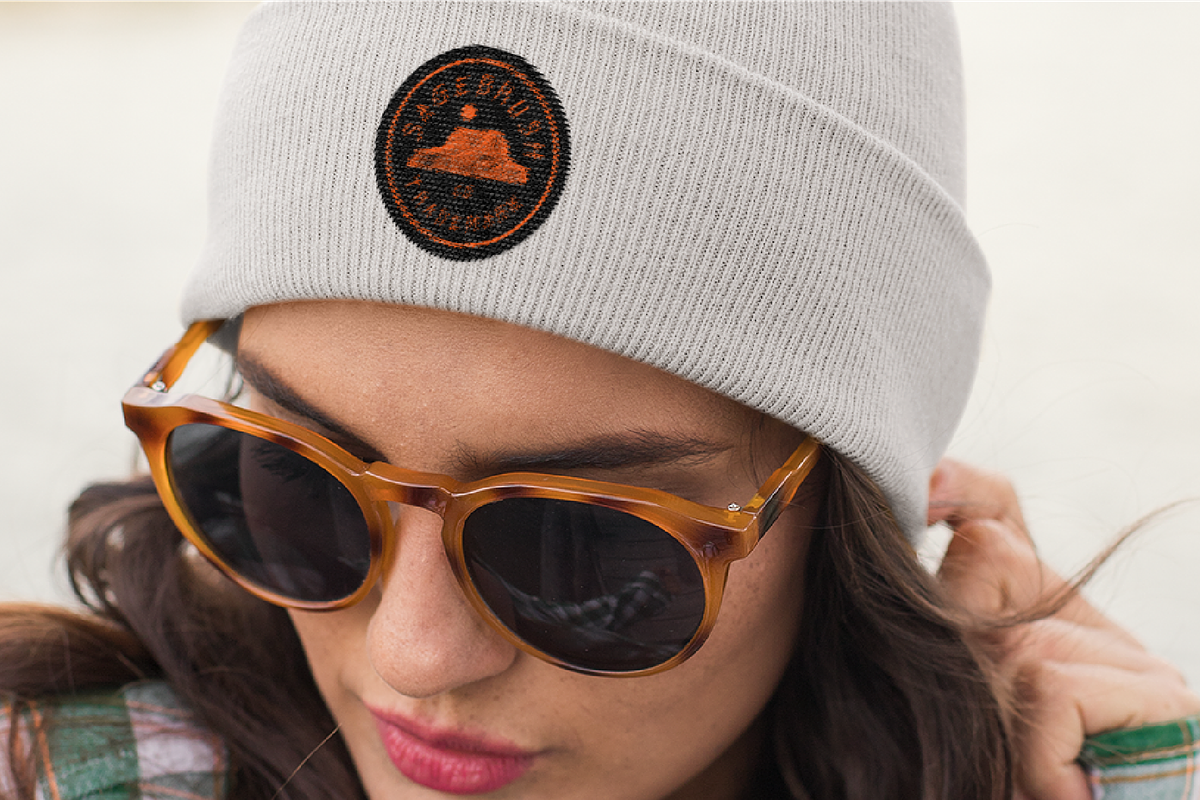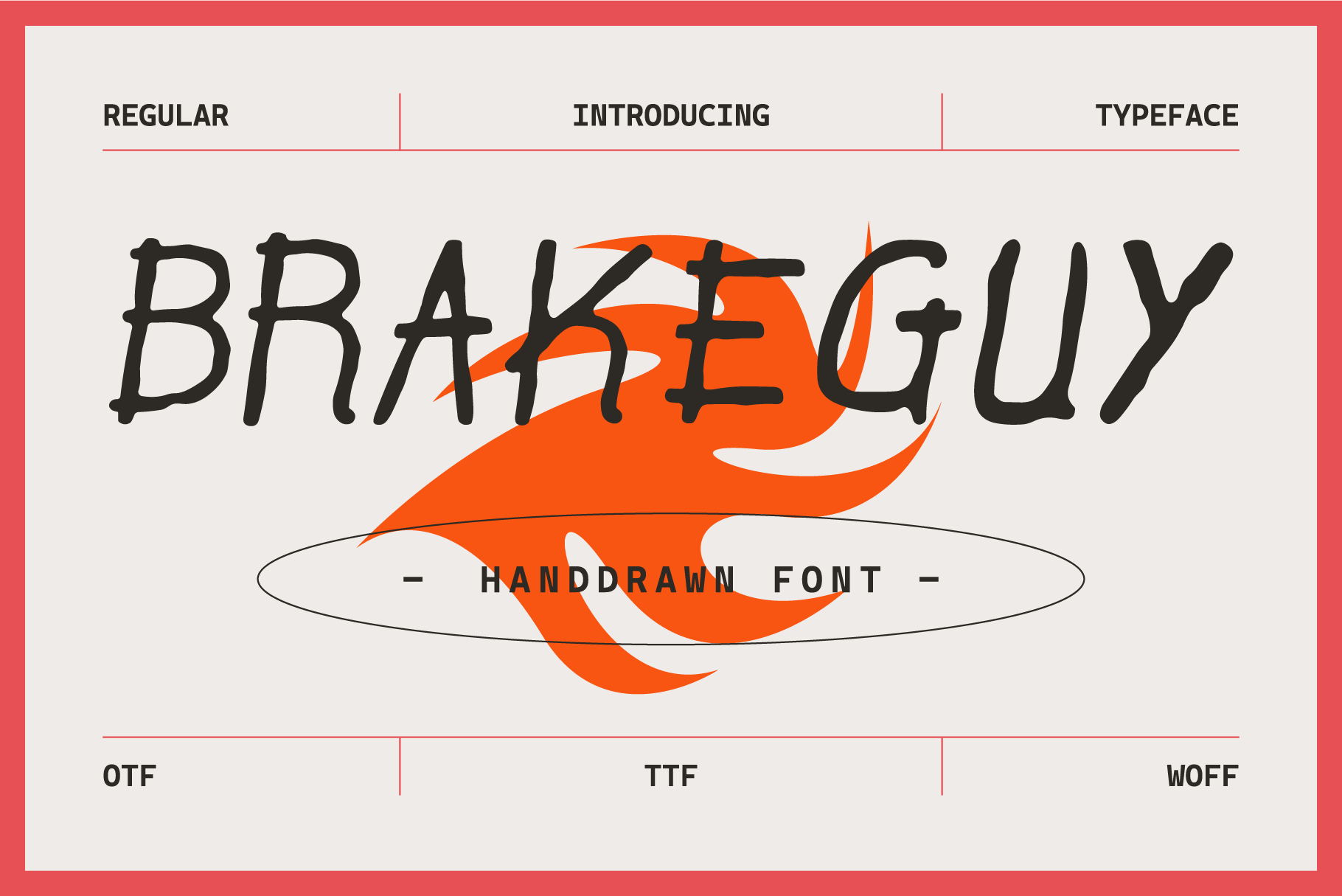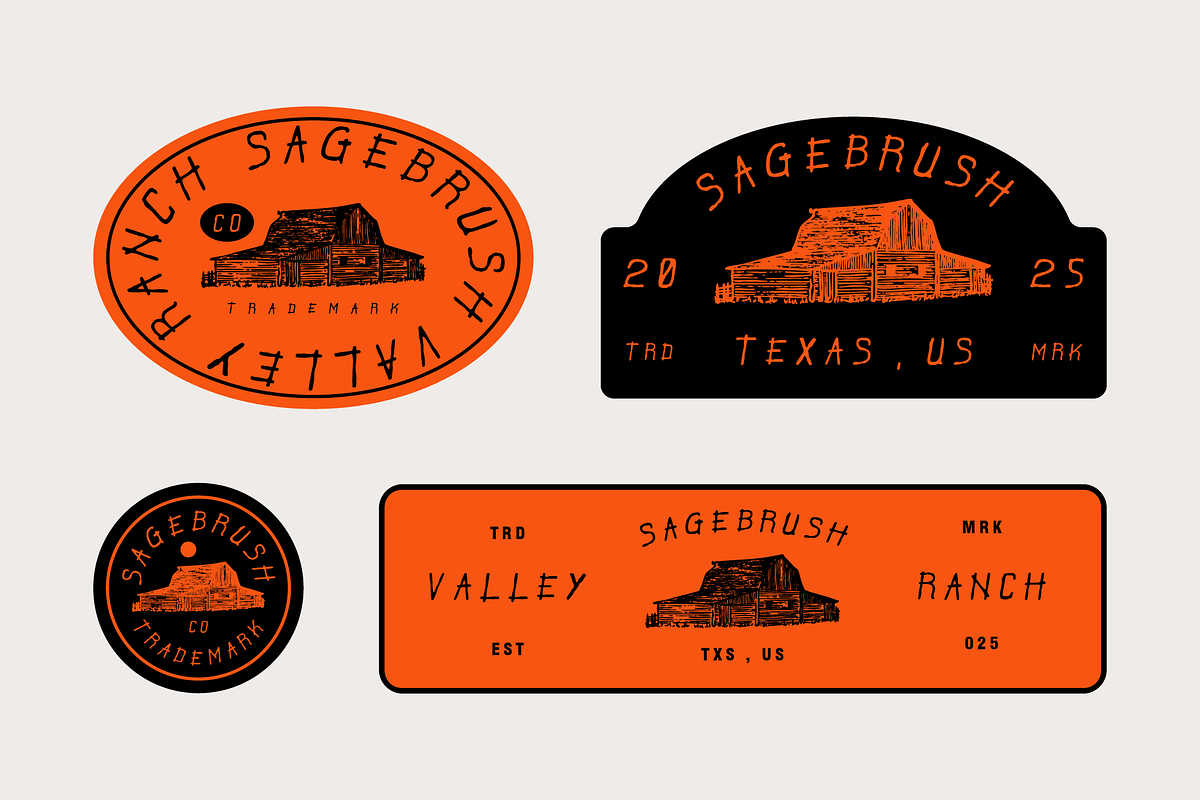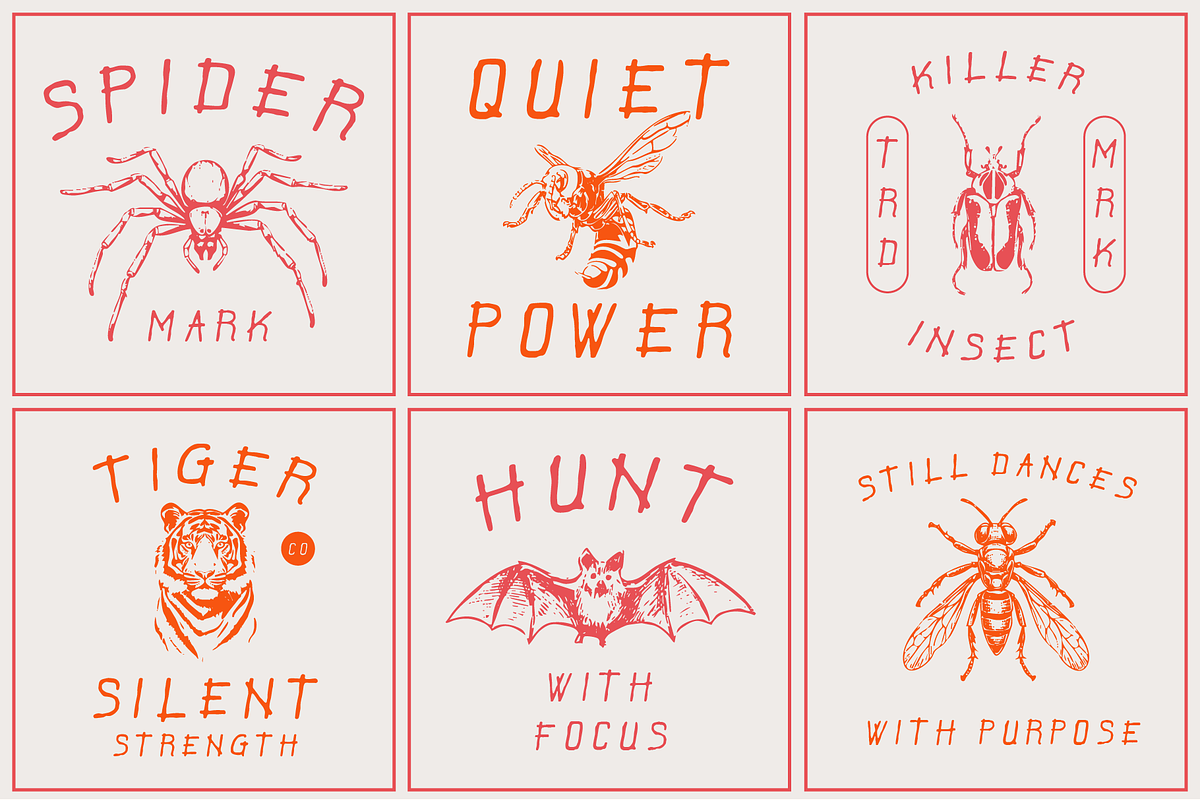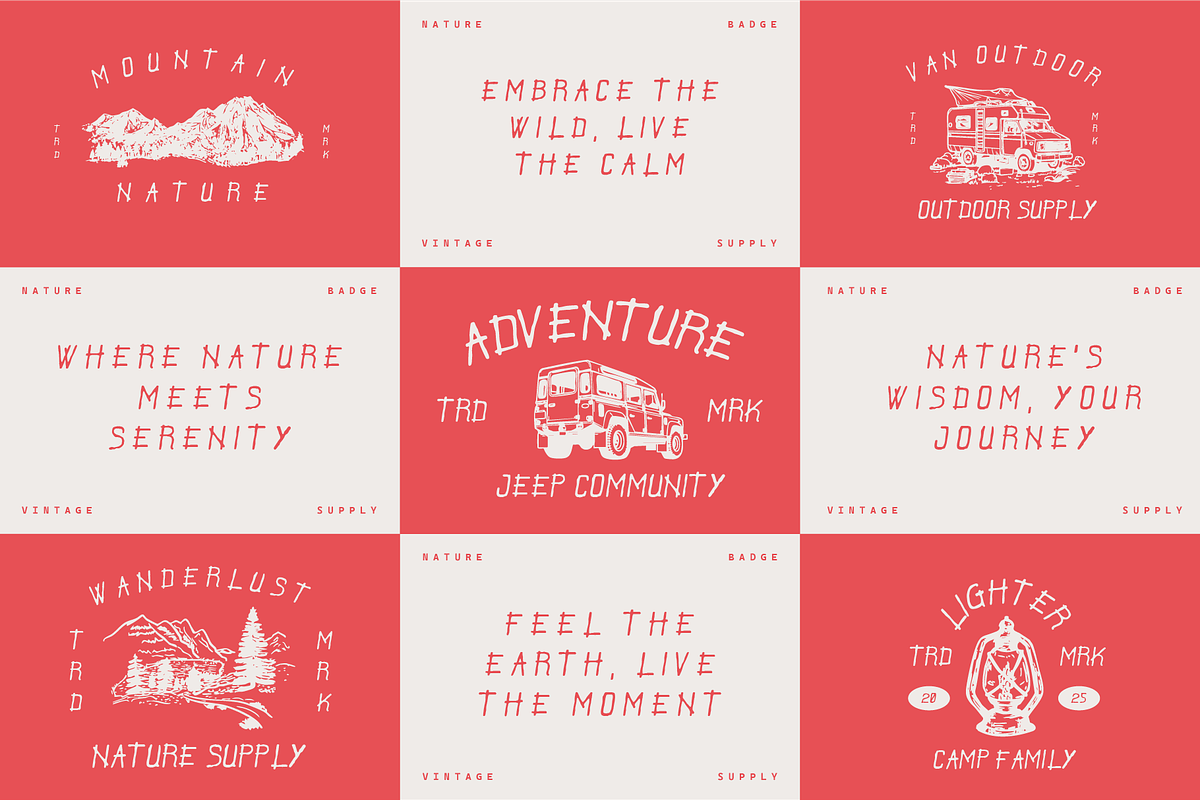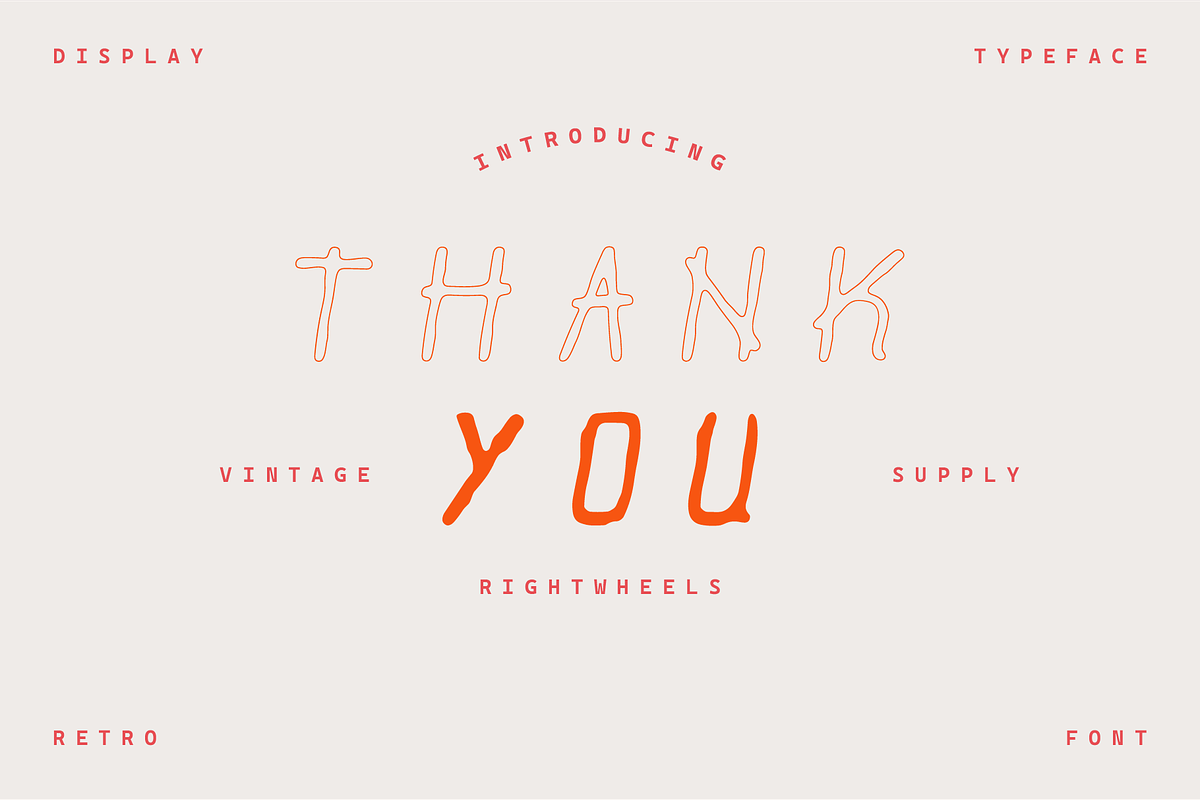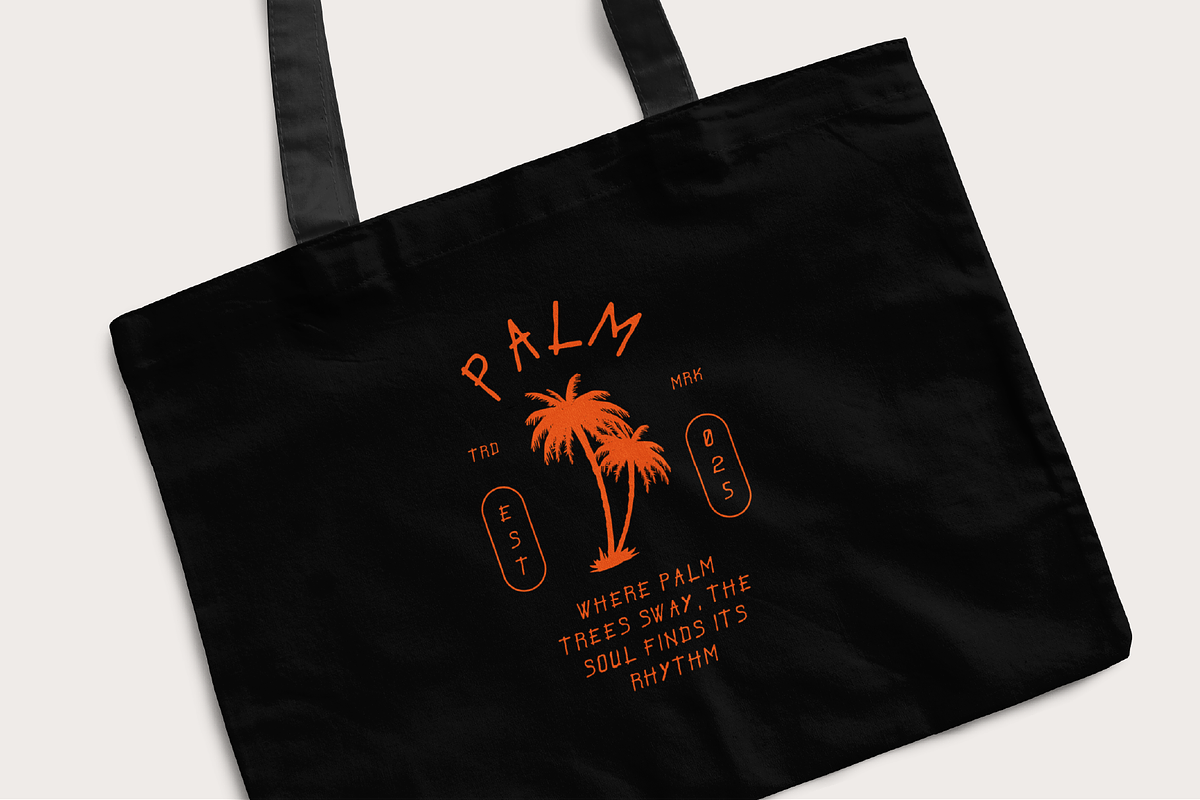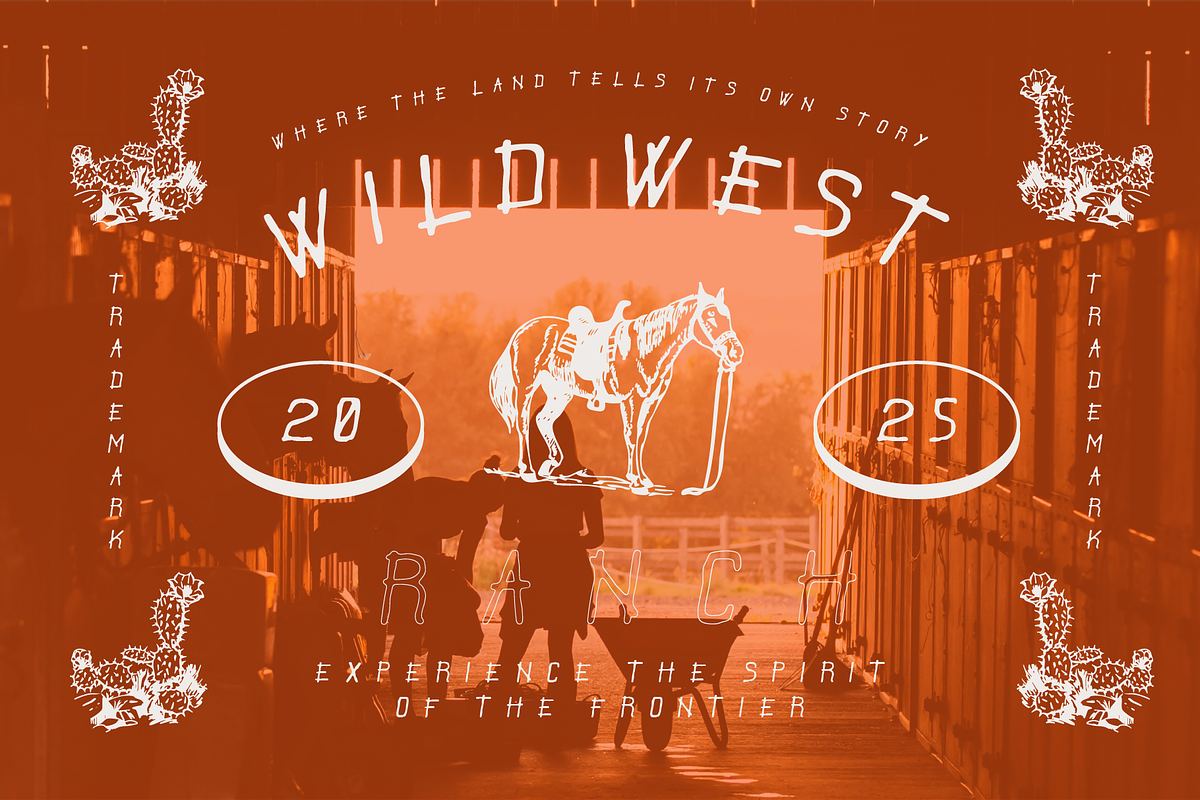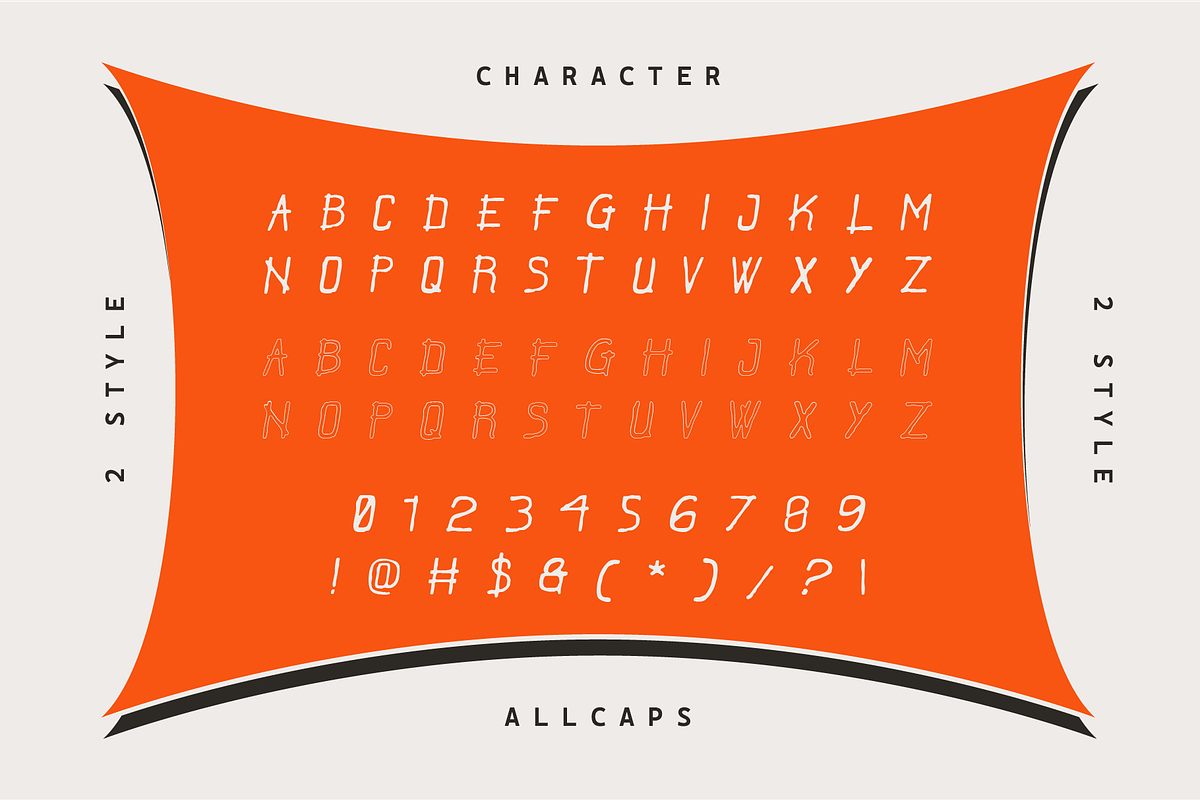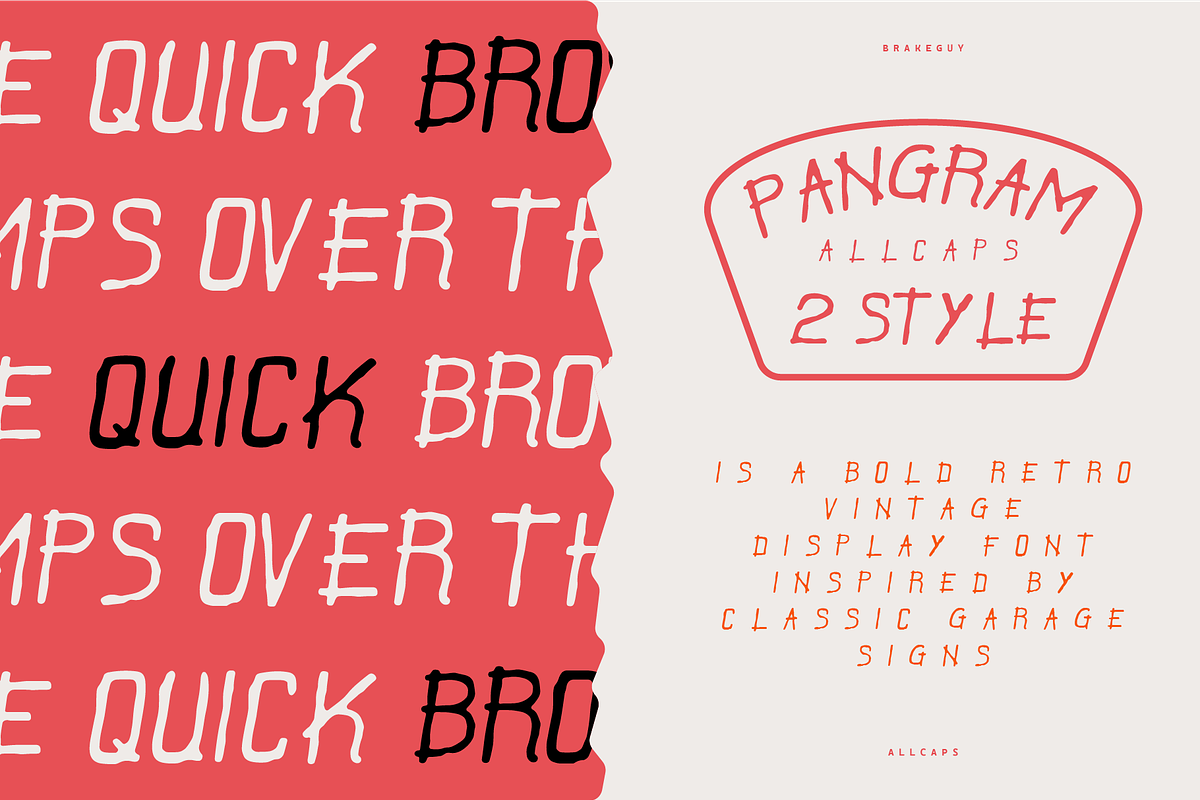
BRAKEGUY - Handdrawn Font
Is a bold retro vintage display font inspired by classic garage signs, old-school motorsport posters, and rugged Americana style. With its strong curves, solid stance, and nostalgic flair, BRAKEGUY brings a raw, masculine edge to any design. Perfect for logos, headlines, apparel, packaging, or anything that needs a punch of vintage attitude and timeless grit.